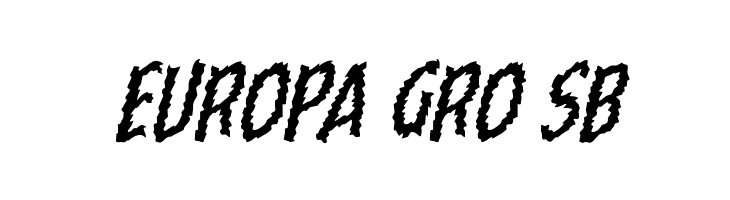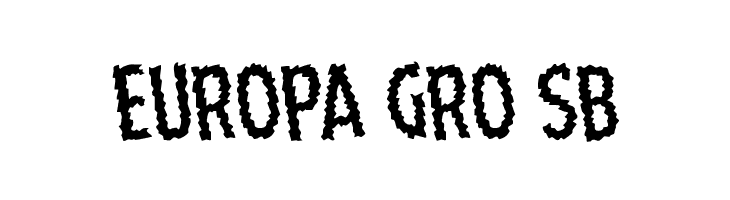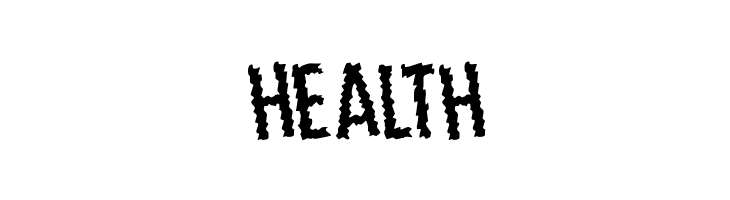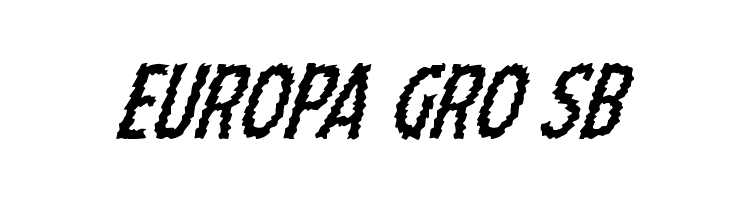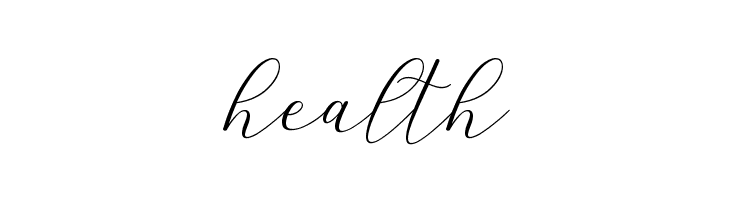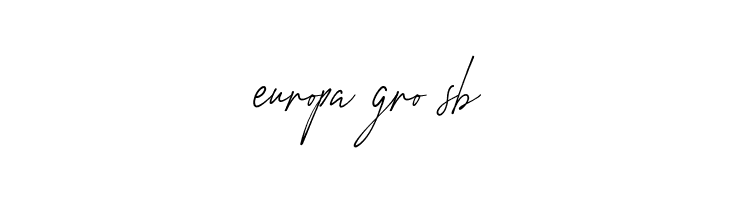
• Ampire Staggered Rotated
A bold, jagged font with a rugged, hand-cut appearance.
• Ampire Super-Italic
A bold, italic font with a jagged, energetic style.
• Ampire Warped
A bold, jagged font with a dynamic, edgy style.
• Ampire Warped Italic
A bold, warped, and italicized font with jagged strokes and dynamic movement.
• Amstella
An elegant script font with flowing, cursive letterforms and refined swashes.
• Amsterdam-Regular
A lively handwritten font with fluid strokes and playful curves.
• Amstirdam
A flowing, cursive script font with an elegant, handwritten style.
• Amstirdam
A fluid, elegant handwritten font with thin, delicate strokes.
• Amstrong
A fluid and elegant script font with a modern calligraphic style.
• Amtrash_PersonalUseOnly
A bold, energetic brush script font with dynamic strokes.